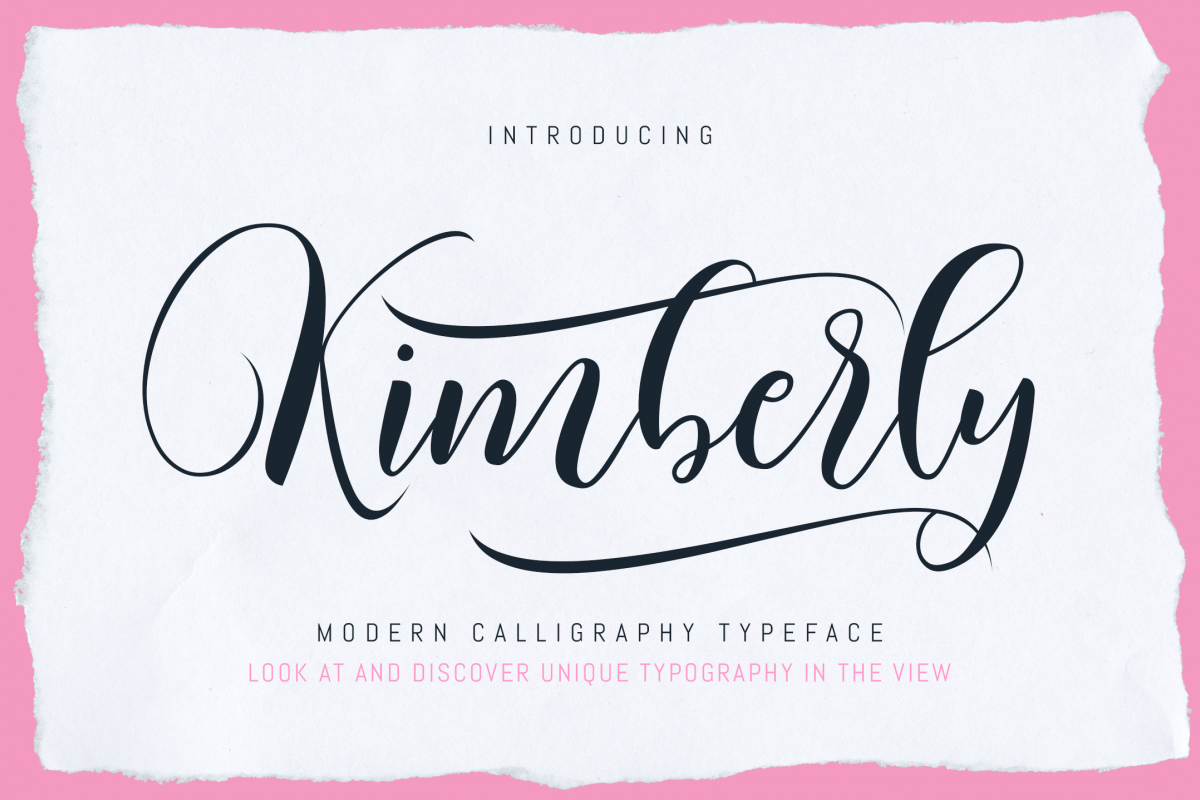
Kimberly Script
Kimberly Script is a modern calligraphy script font that gives your design an authentic cheating. perfect for signatures, wedding, invitation, card, stationery, logos, typographic quotes, book covers, website headers, flyers, clothing, branding, packaging designs and more.
Foreign languages support: ÀÁÂÃÄÅÆÇÈÉÊËÌÍÎÏÐÑÒÓÔÕÖØÙÚÛÜÝßàáâãäåæçèéêëìíîïðñòóôõöøùúûüýÿ